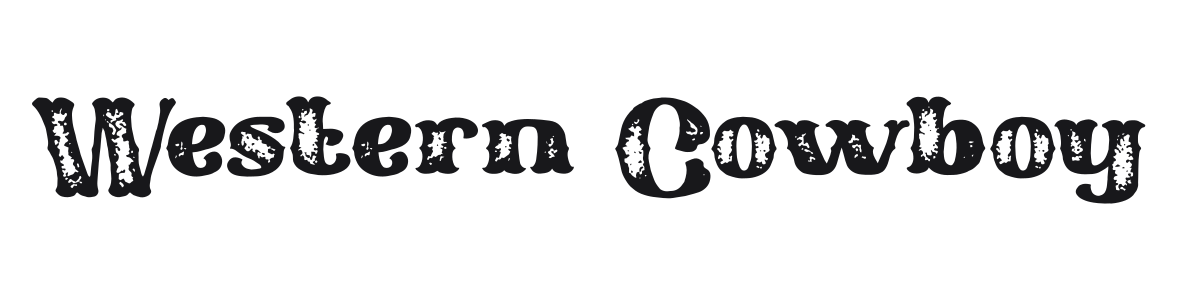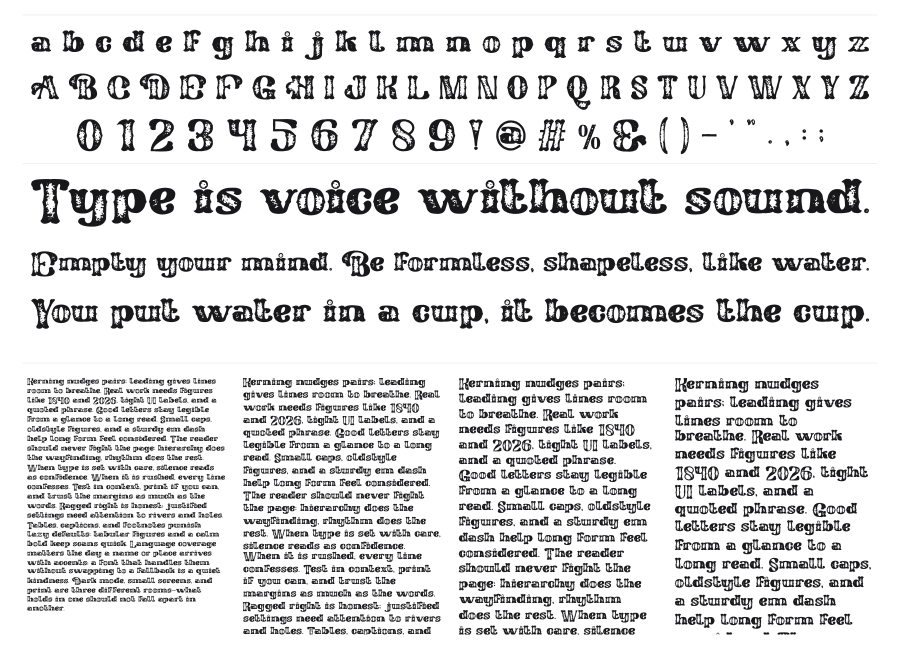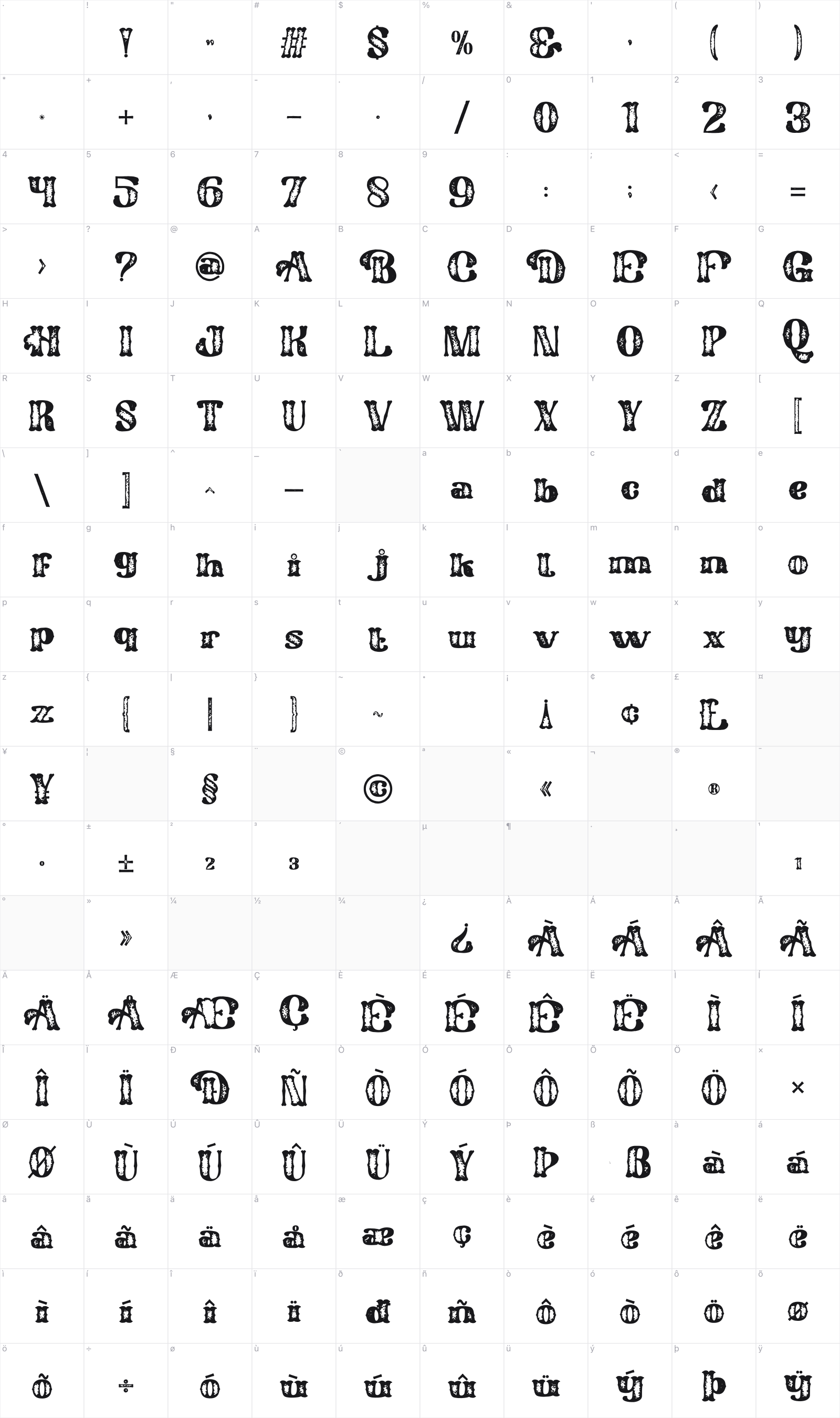
Western Cowboy
Western Cowboy is a heavy distressed serif soaked in 19th-century American frontier atmosphere. Thick stems, dramatic stroke contrast, and a weathered texture combine to evoke aged saloon signage, wanted posters, and worn letterpress type. The roughened surface gives it an authentic, lived-in quality that clean Western revivals often lack.